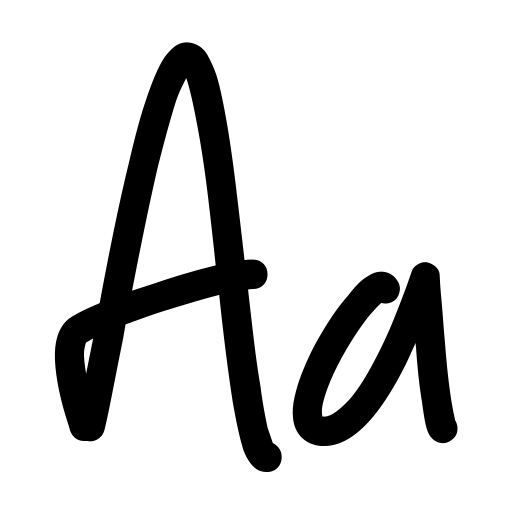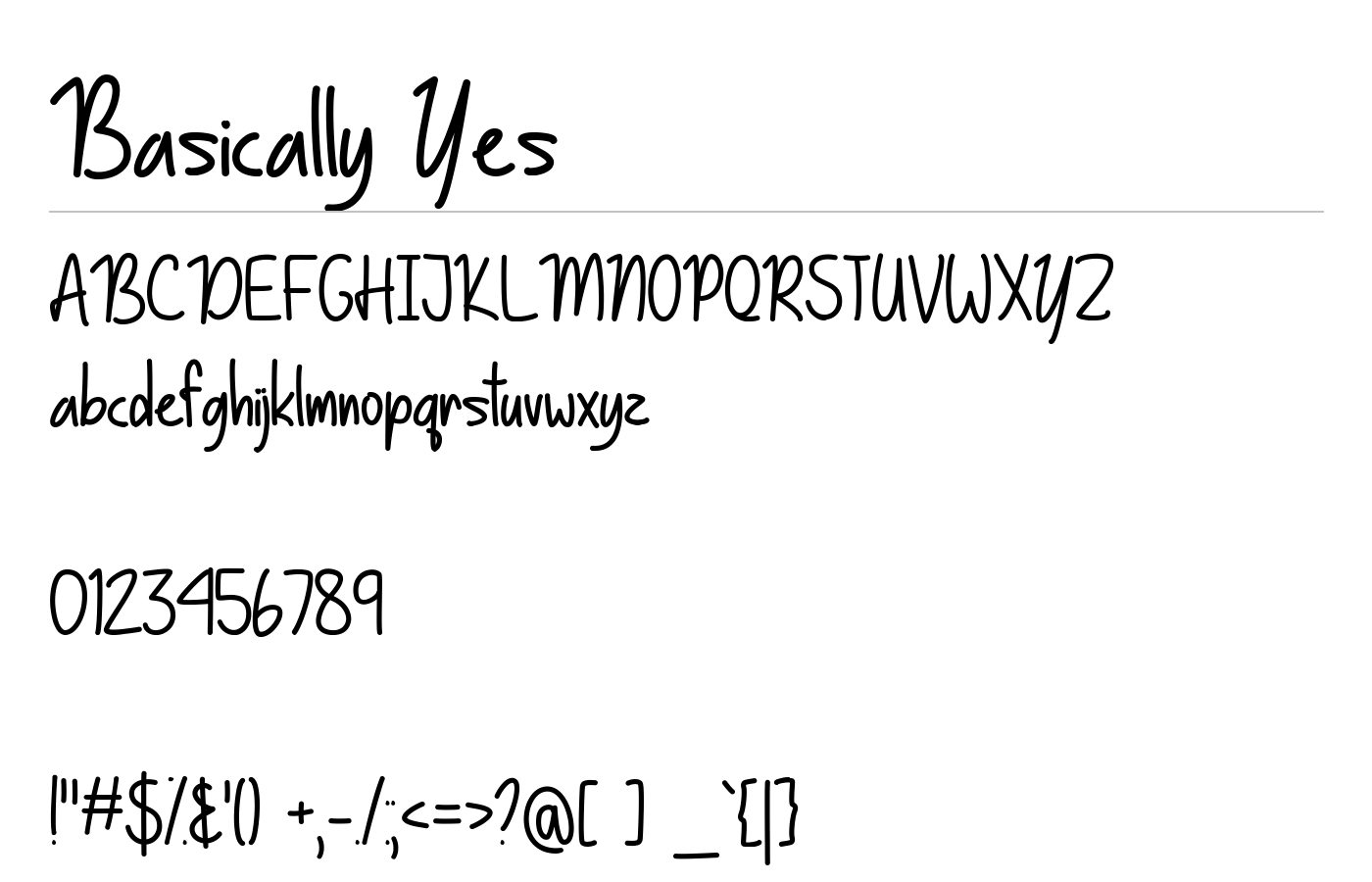
Basically Yes is a playful, casual handwritten font with a friendly and informal vibe. Its tall, slightly condensed letterforms and consistent stroke weight create an approachable and easy-to-read style that works well for personal projects, children’s content, or any design seeking a warm, human touch. This font is ideal for invitations, greeting cards, or branding that wants to feel sincere and lighthearted.
Basically Yes Font
About Basically Yes Font